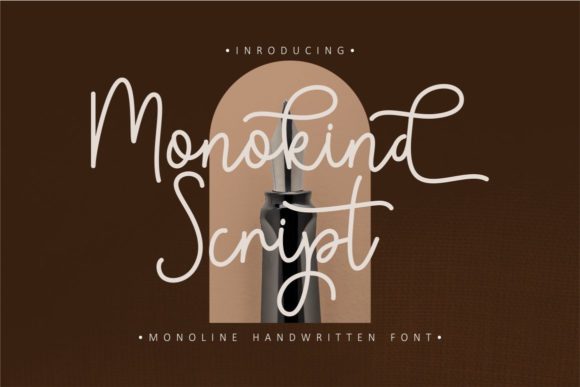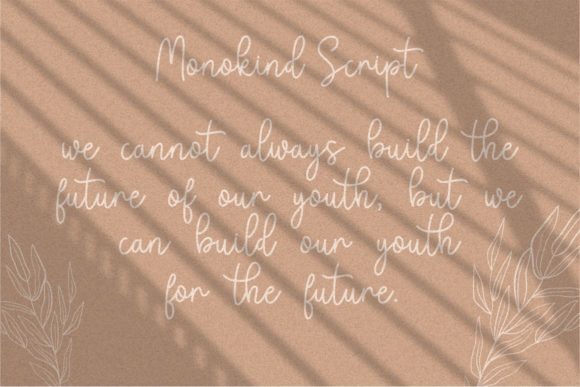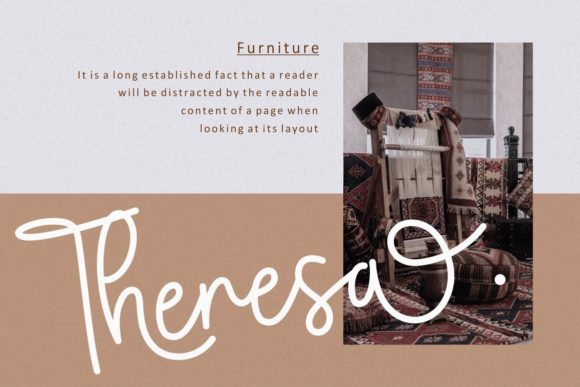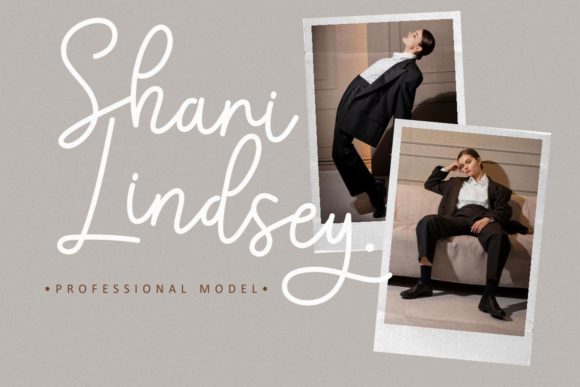
Monokind Script Font
About the Monokind Script Font
Unleash your creativity with Monokind Script Font, a versatile font perfect for a wide range of applications. Monokind Script is a relaxed, adaptable and friendly handwritten font. Its natural and unique style makes it incredibly fitting to a large pool of designs. This font is PUA encoded which means you can access all of the glyphs and swashes with ease!
Monokind Script excels in projects requiring a friendly, approachable feel. Ideal applications include branding for artisanal food products, invitations, short-form marketing materials, and social media graphics. Its relaxed nature makes it perfect for headlines and short text blocks where readability isn’t paramount, but its informal style is a drawback for body copy or UI elements. Avoid using it for lengthy text.
Pairing Monokind Script with a clean sans-serif like Lato or Open Sans provides a strong contrast, balancing its handwritten informality with a touch of modern sophistication. For a more vintage feel, consider pairing it with a serif font like Playfair Display. Alternatively, a geometric sans-serif could add a contemporary edge.
The font’s overall personality is best described as friendly and approachable, with a slightly whimsical touch. This makes it suitable for brands projecting warmth and approachability, but less appropriate for corporate identities demanding a more serious or professional image.
Monokind Script Font Usage Examples
Monokind Script Font Example